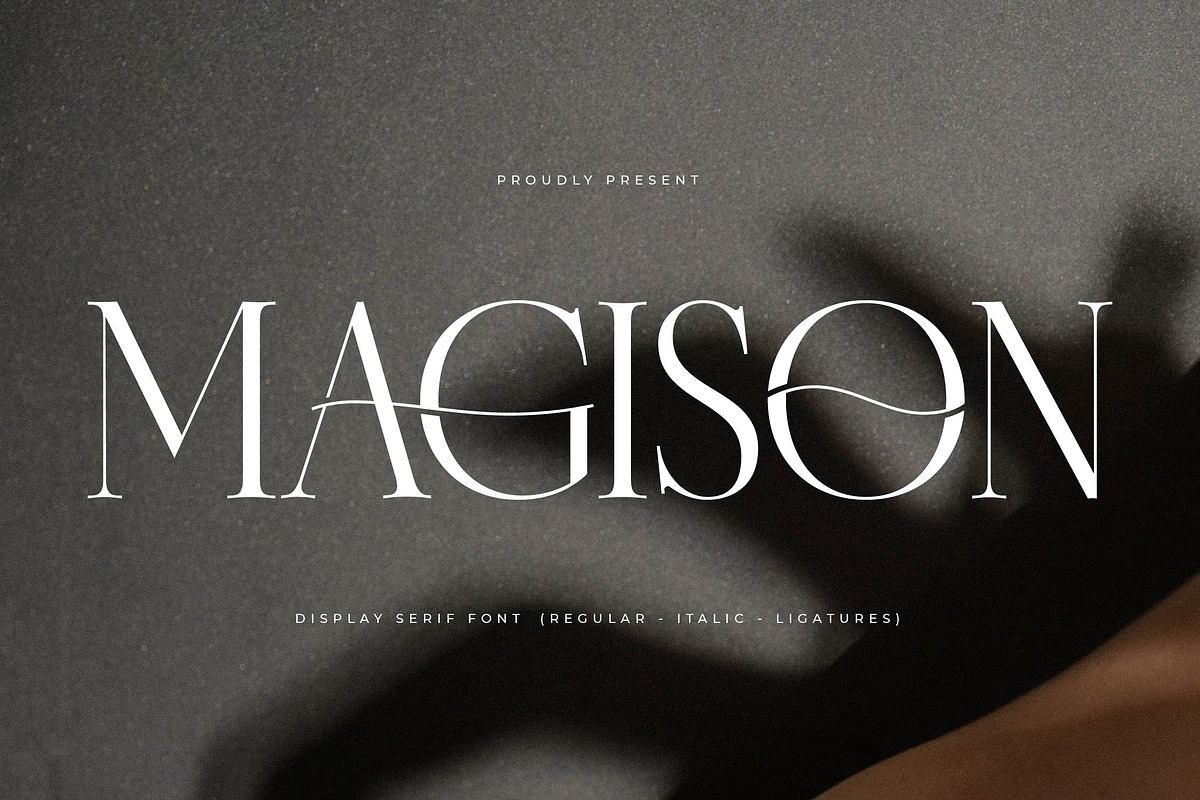
Magison Display Serif Font Free Download
Magison Display Serif Font Free Download is a sophisticated and stylish typeface designed to make your headlines and branding projects stand out with elegance. Please note, you are required to purchase this font for commercial use. It is available for free download for testing and personal projects only.
Featuring high-contrast strokes, sharp serifs, and graceful curves, Magison is ideal for fashion branding, editorial layouts, logos, packaging, and luxury event invitations. Its bold personality and refined design strike the perfect balance between classic and contemporary aesthetics.